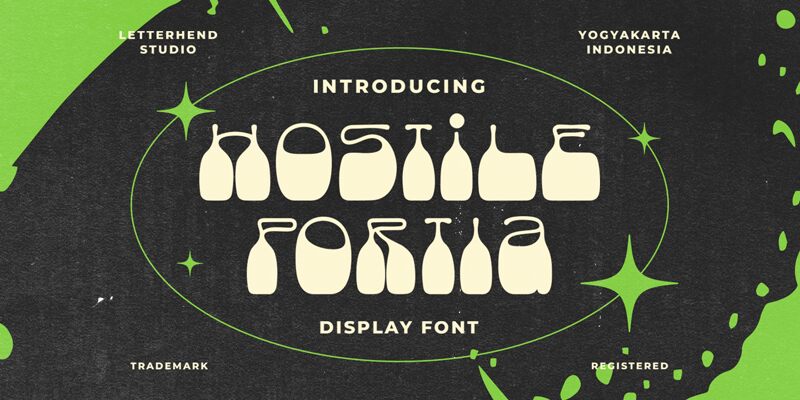
Hostile Portia font by Letterhend Studio is a free groovy typeface inspired by unconventional and retro-futuristic visuals. The font features a rugged and quirky appearance with a bold aesthetic that ensures a high-impact finish. The font’s combination of distinctive contemporary appeal and unique character design makes it a valuable resource in artistic projects.
With its unusual characteristics, Hostile Portia is a suitable choice for posters, book covers, magazines covers, headlines, advertising, and other print media. It can also be used in branding stationery, packaging, and labels designed for product packaging.